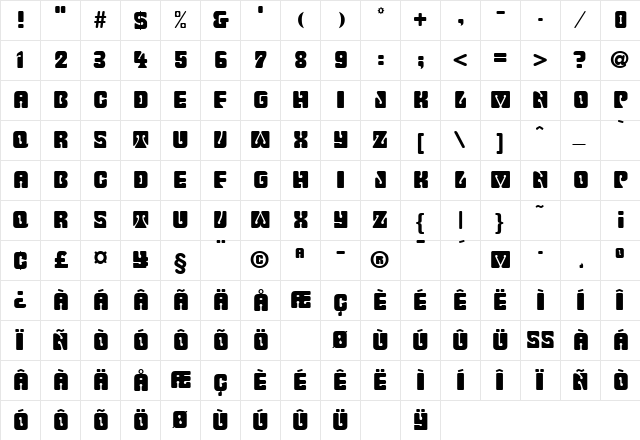
FEARGUS Regular
Design Context for FEARGUS Typeface
FEARGUS is a composed and adaptable typeface that performs quietly and consistently across a wide range of design contexts.